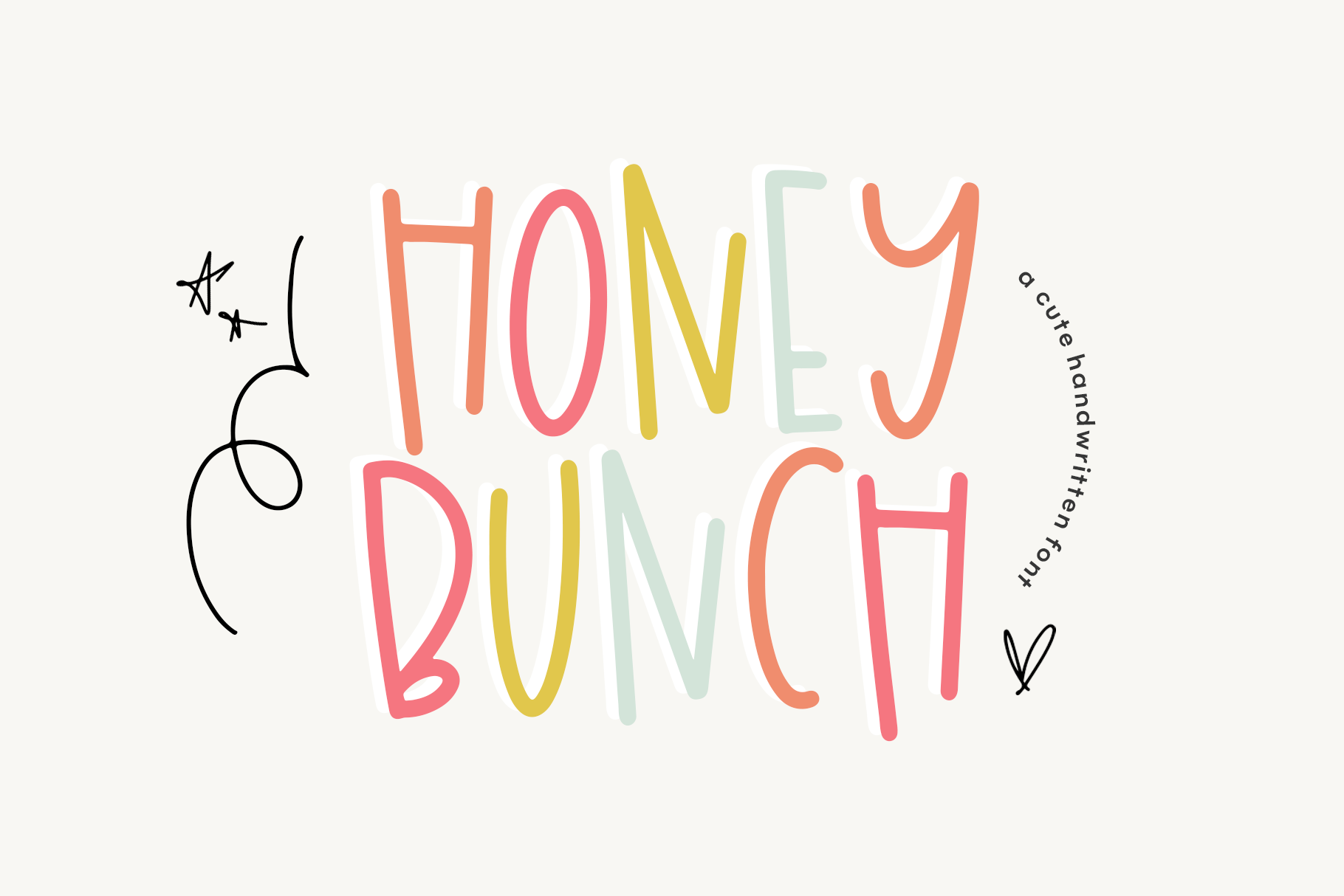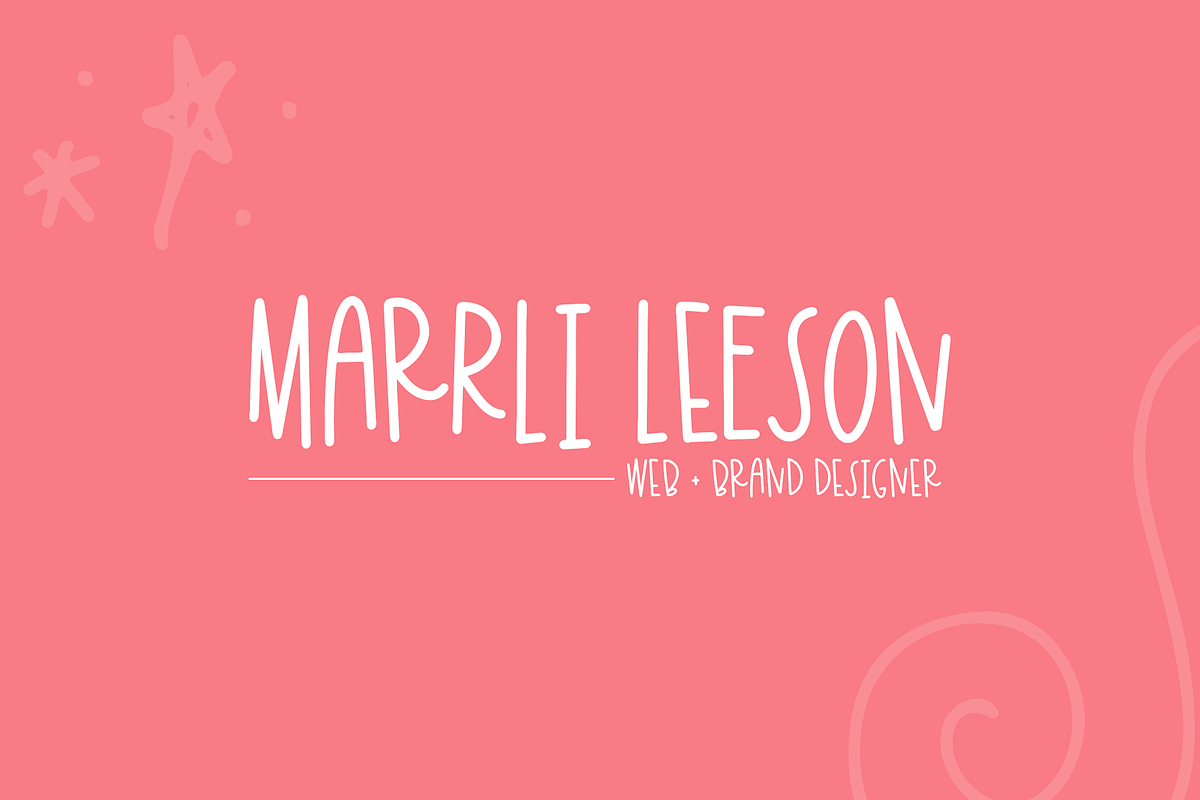
Honey Bunch | Font with Extras
Honey Bunch is a bouncy handwritten font with a full set of decorative doodles! This is an all caps font - with ligatures for RR, SS + EE.
Honey Bunch Extras includes 52 hand-drawn and hand-lettered doodles. To access these doodles use characters A-Z & a-z.